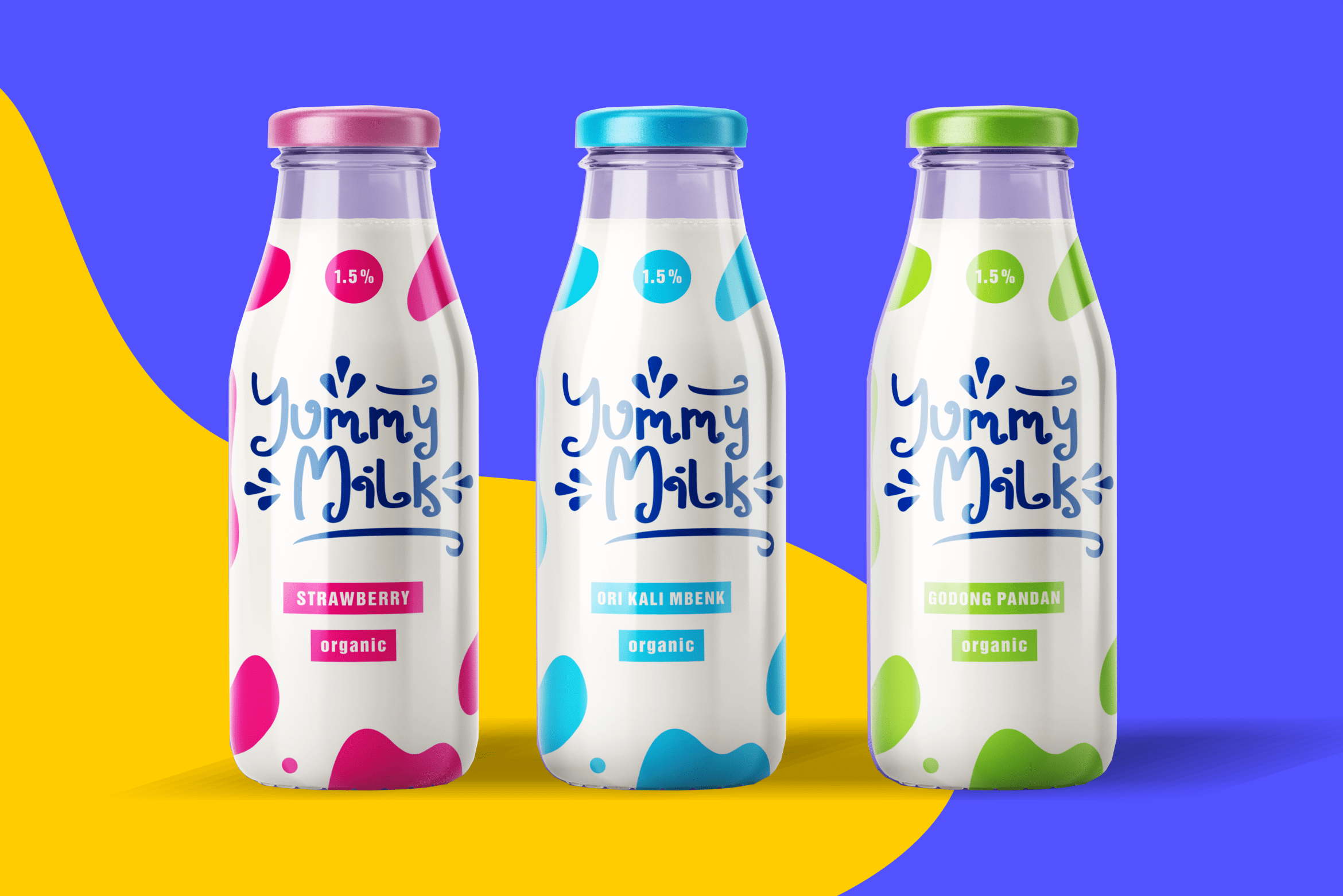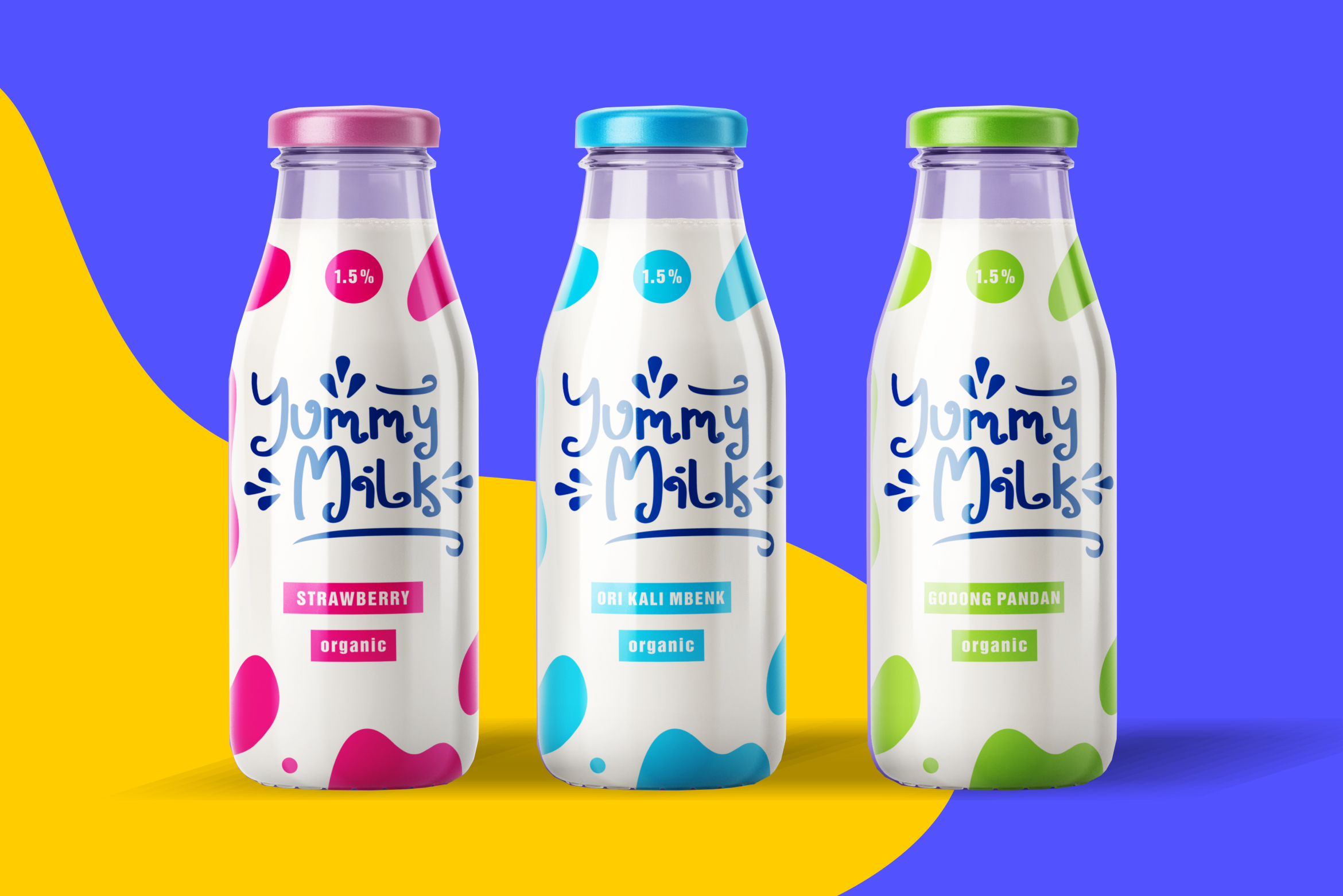
Dreamcoil Script Font
This is a chic, whimsical and highly detailed script font. It is defined by smooth curves and is perfect for fashion branding or editorial designs. Add it confidently to your projects, and you will love the results.